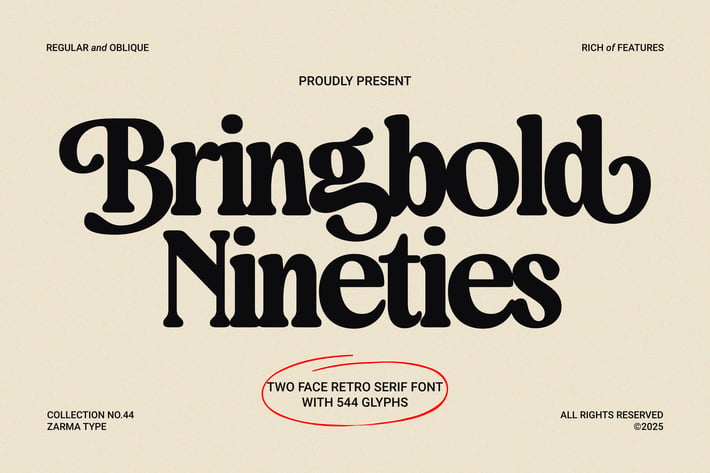
Bringbold Nineties - Retro Serif Font
Bringbold Nineties is a bold retro serif display font inspired by iconic 90s headlines, flashy marquee letters, and vintage editorial layouts. Chunky letterforms, tight spacing, and sharp serifs create a strong visual rhythm that instantly brings that nostalgic, slightly loud 90s attitude into your designs, while still feeling clean and modern enough for contemporary branding.
This typeface comes in two styles – Regular and Slanted – and is packed with OpenType features including stylistic alternates, ligatures, and decorative characters. Mix and match them to build expressive logotypes, dramatic poster titles, or playful packaging that looks custom-lettered straight out of a design studio. With multilingual support and a complete punctuation set, Bringbold Nineties is ready for everything from branding systems to editorial spreads.
Perfect for:
+ 90s inspired branding & logo design
+ Vintage poster and advertisement layouts
+ Editorial headlines & magazine covers
+ Rave & event flyers
+ Restaurant, café & food packaging
+ Fashion labels, tags & merch graphics
+ 2 styles: Regular & Slanted
+ Extensive OpenType features (stylistic alternates & ligatures)
+ Multilingual support (Western European languages)
+ PUA encoded for easy access to alternates
+ Decorative characters & swash-style details
+ Standard & Discretionary Ligatures
+ Complete set of numbers & punctuation